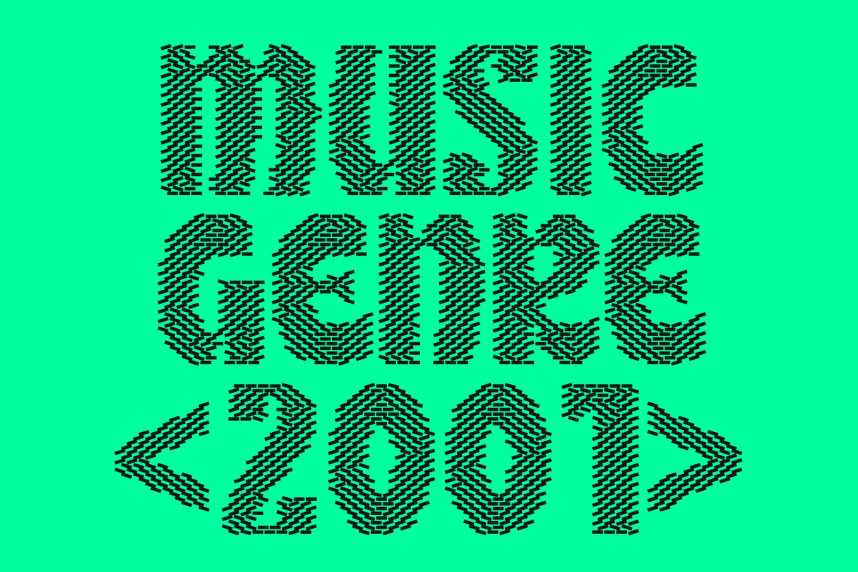
CS Rihana Bricks Font
CS Rihana Bricks Font – Bold Display Font: Where Confident Strength Meets Decorative Brick Texture
Strong Forms with Commanding Presence
This is a bold display font designed to make a powerful statement through its strong and confident character. Its thick letterforms and striking structure create an unmistakable visual impact, ensuring maximum attention in any composition. Built for display purposes, the font delivers a bold personality that feels modern, energetic, and highly memorable.